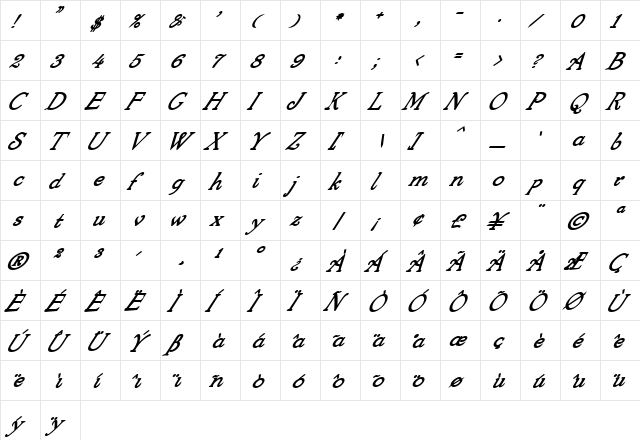
4ArmJoltScriptBoldItalics Regular
Design Context for 4ArmJoltScriptBoldItalics Typeface
4ArmJoltScriptBoldItalics brings a calligraphic fluidity to the page — its connecting strokes and expressive curves give it an unmistakably human quality. Its bold stroke weight gives it real presence on the page.
Font Pairing: Combine 4ArmJoltScriptBoldItalics with a simple geometric sans for maximum contrast — the tension between flowing curves and clean structure is a classic typographic pairing.
Pro Tip: Use 4ArmJoltScriptBoldItalics for short runs of text — names, titles, or taglines. Extended body copy in script faces tires the eye quickly.